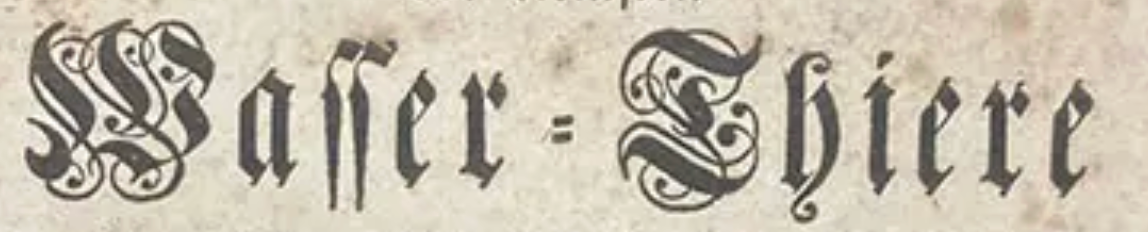
1700s German decorative blackletter
I have come across samples that seem to be the same historical blackletter font, in scans of German books from the 1700s. I at first thought it was the font “Renaissance Kanzlei” by Bauer & Co but when putting individual caps side by side it is definitely different though stylistically similar.
I am asking just out of curiosity and would be interested to know any info about who designed and/or cast the font, and a name if it ever had one. Or was naming fonts a later practice? Historical typography is a pretty new interest for me so there's still a lot I don't know about it.
Gesammelte Nachrichten von dem Erdbeben der Stadt Lissabon (1756)
Gedanken von den Eigenschaften, Wirkungen und Ursachen der Electricität by Johann Winkler (1744)
Beyträge zur Naturgeschichte der kleinsten Wasserthiere by Johann Conrad Eichhorn (1718)
Fvneralia der weyland durchlauchtigsten Fürstin und Frau.... (1742)
Or was naming fonts a later practice?
Yes. Also, foundries ofter shared their matrices, so different foundries offered the same designs.
One of your sources is from the Breitkopf publishing house, which was also a famous foundry. If I would had to start somewhere, I would try to find specimens of their typefaces from that time.
Thanks for the info! I looked at this Breitkopf type specimen catalogue and it has the font in question. It also says it was cut in brass by Johann Peter Art-, though the name is cut off, but with a little more searching I found this page about Johann Peter Artopaeus which also has samples of the font. This has satisfied my curiosity, thankyou 🙂